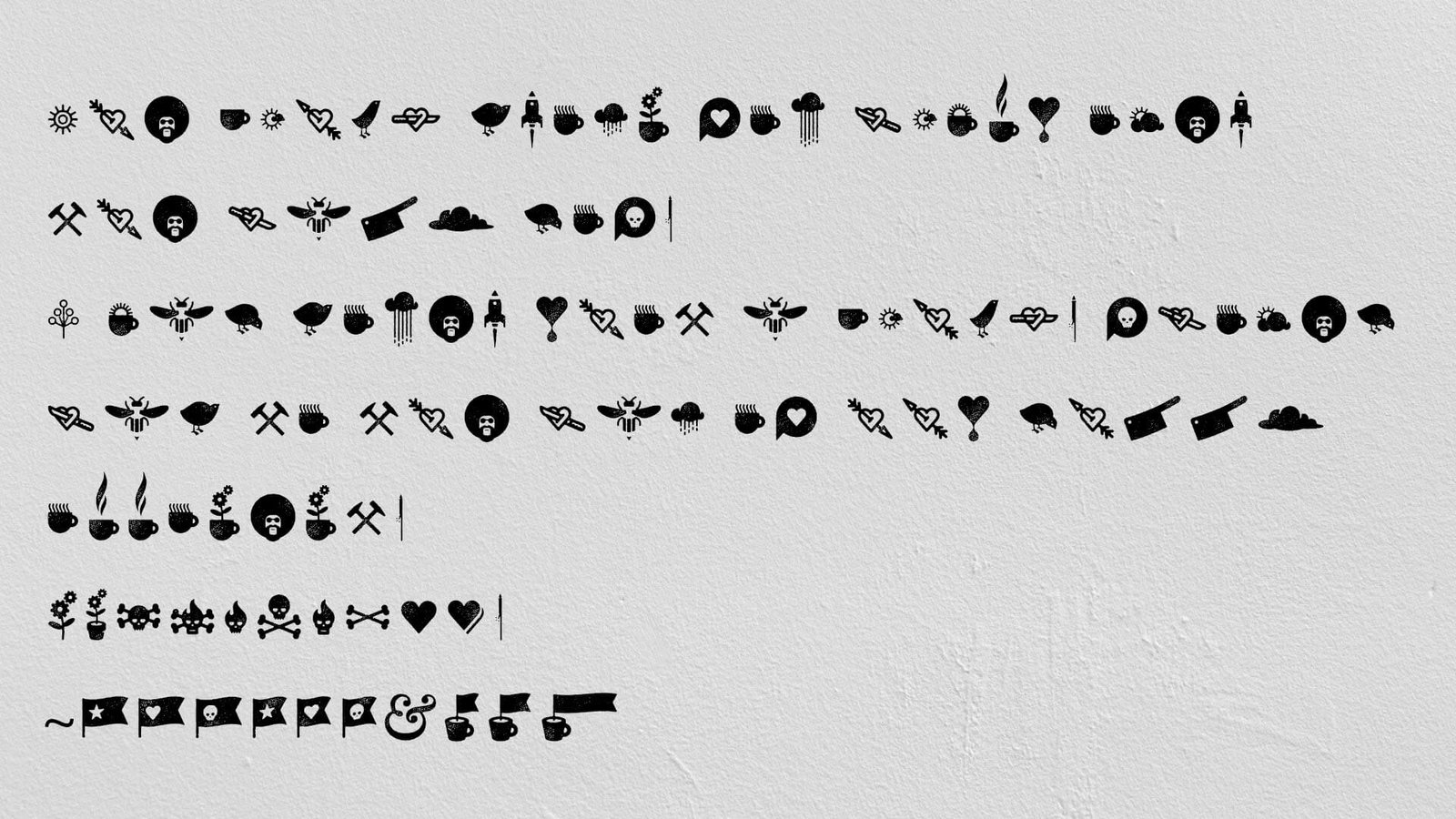
Eveleth Font is a Display typeface family that was designed by Ryan Martinson and Yellow Designs Studios. Known for their impressive font styles, they released this typeface in 2014. The font family includes four styles: Regular, Thin, Bold, and Dot Regular. If you’re looking for a versatile and stylish font, Eveleth is a great choice to consider.
This typeface also contains funky icons and shadow layers. This textured style only contains uppercase letters. This typeface also has some similar fonts.